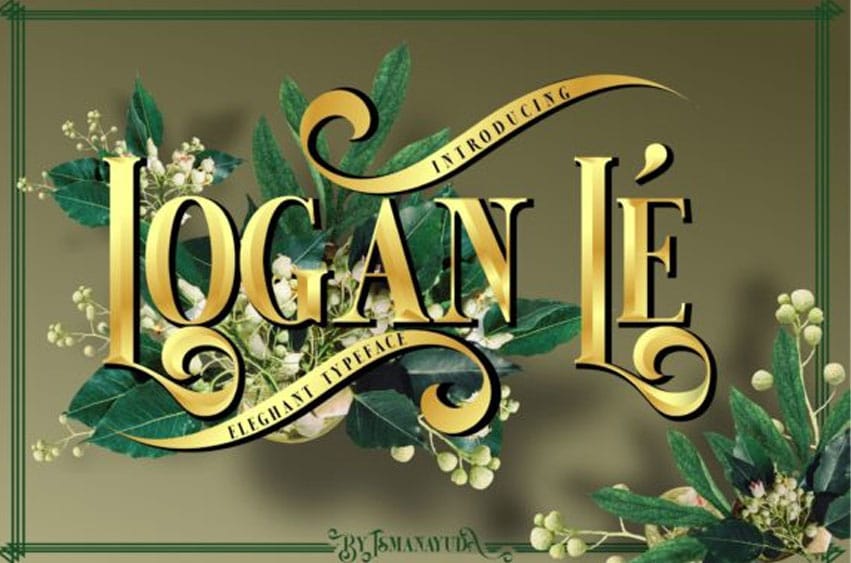
Logan Le Font is an elegant and modern display font.
It is ideal for logos, business branding, writing web designs, business cards, or pretty much anything else that requires a unique touch.